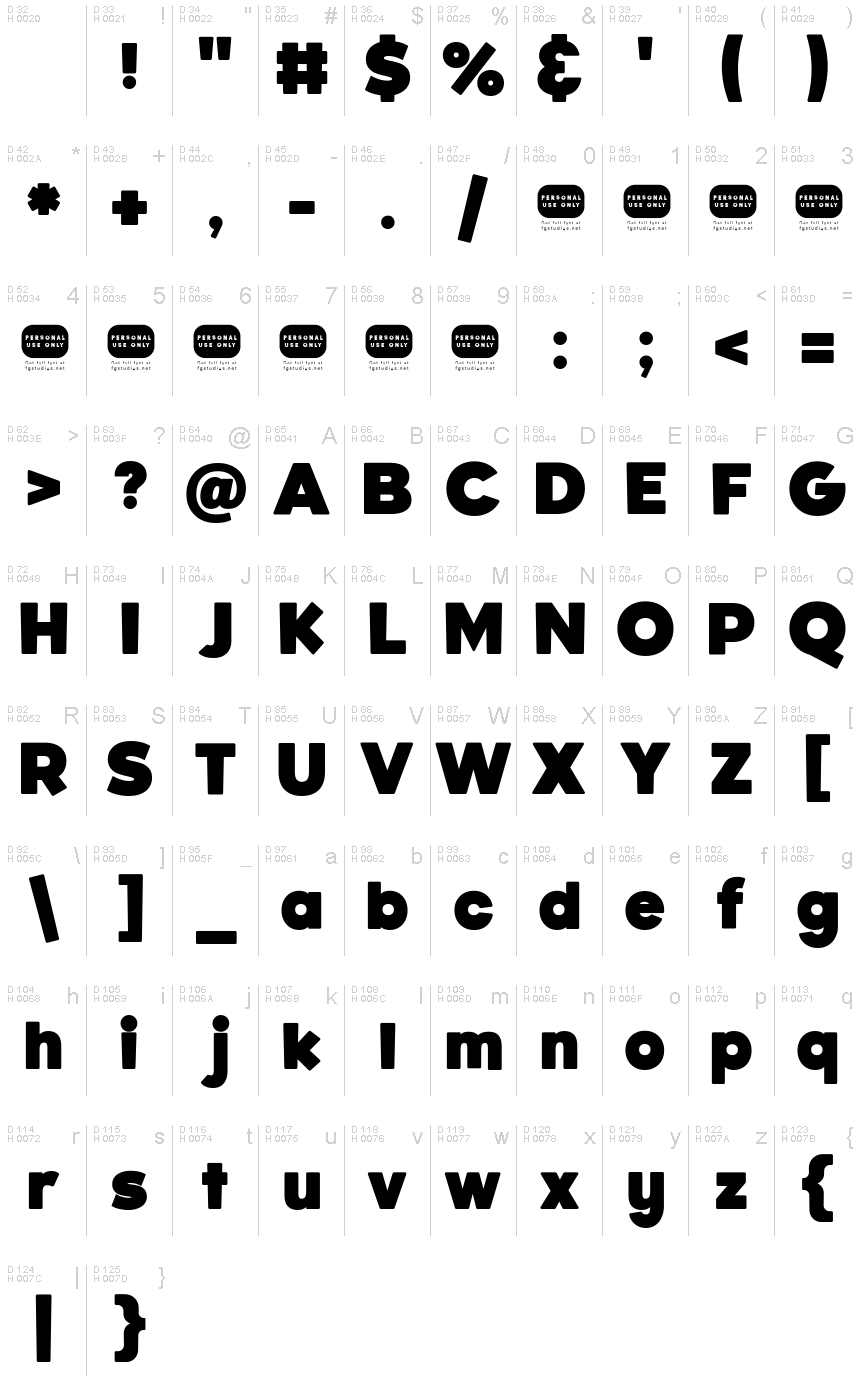
Bernie
Bernie, crafted by FG Studios, exudes a playful charm with its cartoonish sans serif design. This bold font boasts rounded edges and a vibrant character that brings a whimsical yet approachable feel. The exaggerated weight makes each letter stand out energetically, capturing attention with ease.
Visually striking and full of personality, Bernie is perfect for engaging audiences in various contexts. Its cheerful aesthetic lends itself beautifully to children’s products, branding for casual events, or any creative project that seeks to convey fun and friendliness. Whether used in advertising or digital media, Bernie effortlessly enhances the overall vibe, making it an excellent choice for designers aiming to evoke joy and approachability in their work.